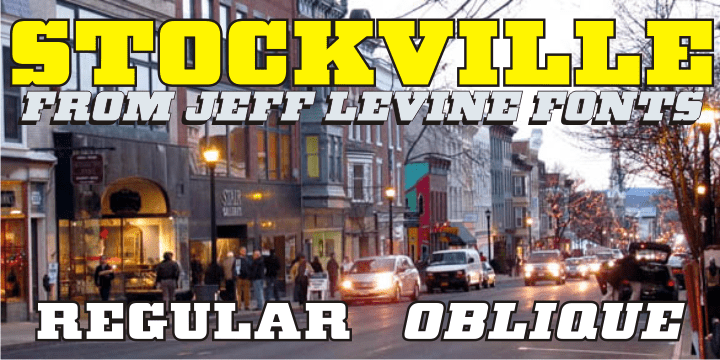
Stockville
Stockville JNL is a total rebuild of the wood type design originally found in Arvada JNL. All angular lines were straightened to give the lettering a more classic look. Bold, brash and block style, this headline typeface is available in both regular and oblique styles.
Stockville JNL Regular by Jeff Levine Fonts